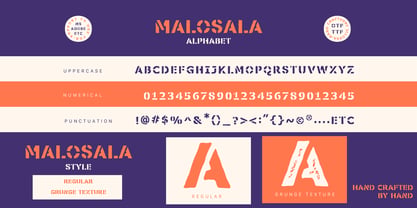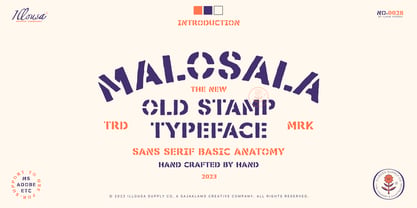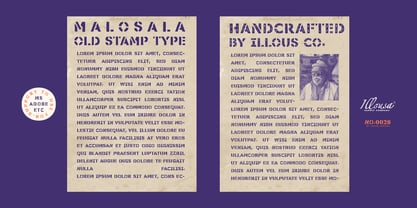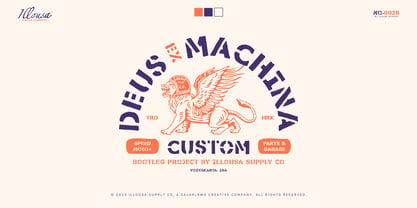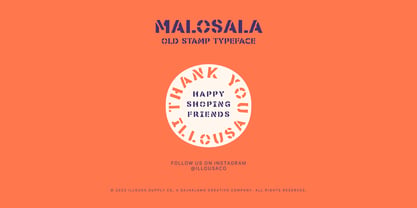
SCC Malosala
La familia tipográfica SCC Malosala fue diseñada por Ilham Afrora y publicada por Illousa Supply Co. SCC Malosala contiene 2 estilos y opciones de paquete familiar. Más información sobre esta familia
Malosala: The New Old Stamp Typeface Malosala is a premium display font that captures the raw, industrial energy of vintage cargo stamps and traditional block printing. Developed by Illousa Supply Co., this "New Old Stamp Typeface" is meticulously designed with a Sans Serif basic anatomy, ensuring high legibility while maintaining a weathered, authentic character. The core strength of Malosala lies in its "hand-crafted by hand" philosophy, providing a tangible, tactile feel to every design. This collection comes in two distinct styles to offer designers maximum flexibility: Malosala Regular: A clean, solid version of the stencil anatomy. It is perfect for designs that require a strong, structured look while retaining a unique handmade charm. Malosala Grunge Texture: A high-character version rich in texture. It features "ink-bleed" effects and worn wood-grain details, providing a truly organic, vintage finish without the need for manual distressing. Perfect For: Branding & Logos: Create impactful "TRD MRK" style identities with a vintage industrial edge. Packaging Design: Ideal for artisanal product labels that need to convey a sense of history and craftsmanship. Apparel & Merchandise: A powerful choice for t-shirts and streetwear headlines that demand a rugged aesthetic. Posters & Signage: Delivers massive visual impact for arched layouts and bold display headlines.